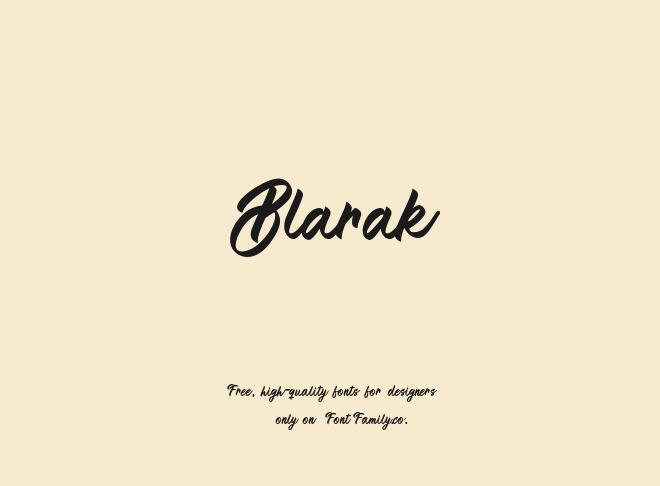
Blarak Font
Blarak Font is a modern and playful script typeface designed by Kreativ Font. With its unique and dynamic style, it brings a touch of creativity and fun to any design project. It's perfect for logos, branding, invitation cards, and social media posts. Its handwritten style gives it a personal touch, making it a great choice for projects that require a friendly and inviting appearance. Its modern touch makes it versatile and suitable for a wide range of designs. Compared to other fonts, Blarak stands out due to its playful vibe and the unique character shapes. It's a great choice for designers looking for a unique and trendy font to add a creative touch to their designs.